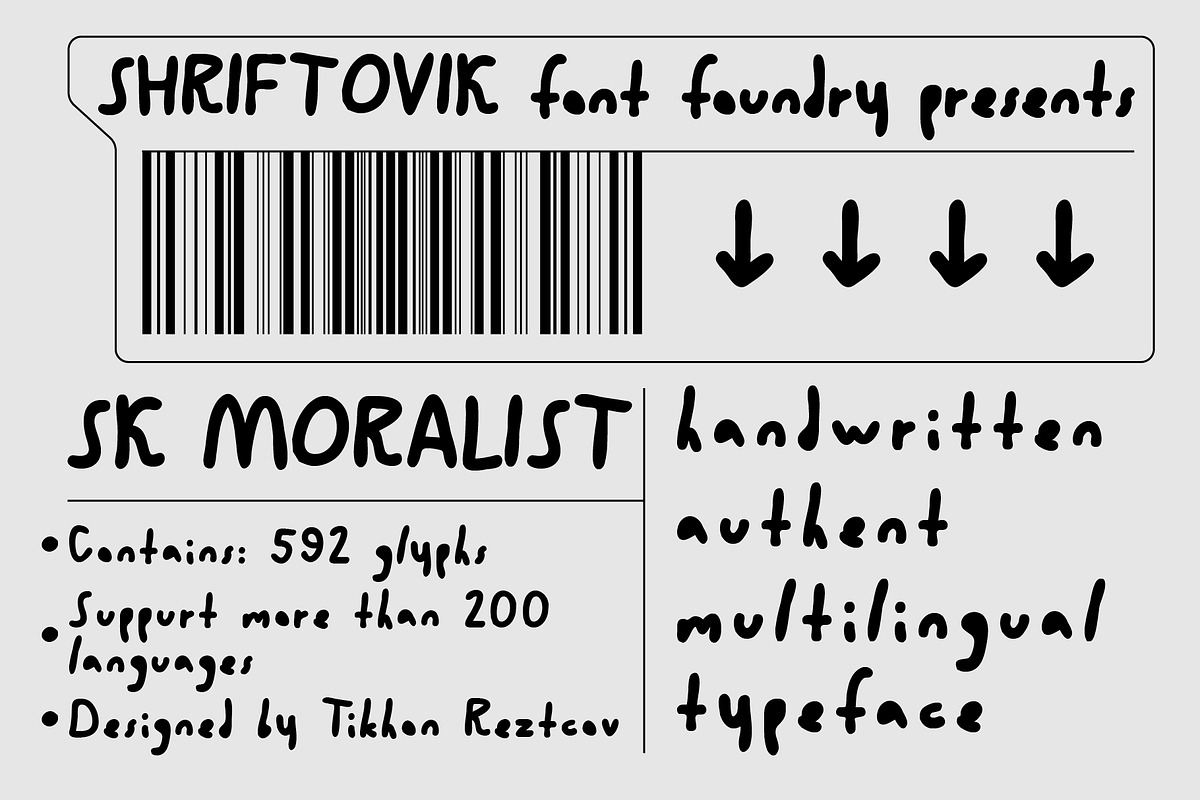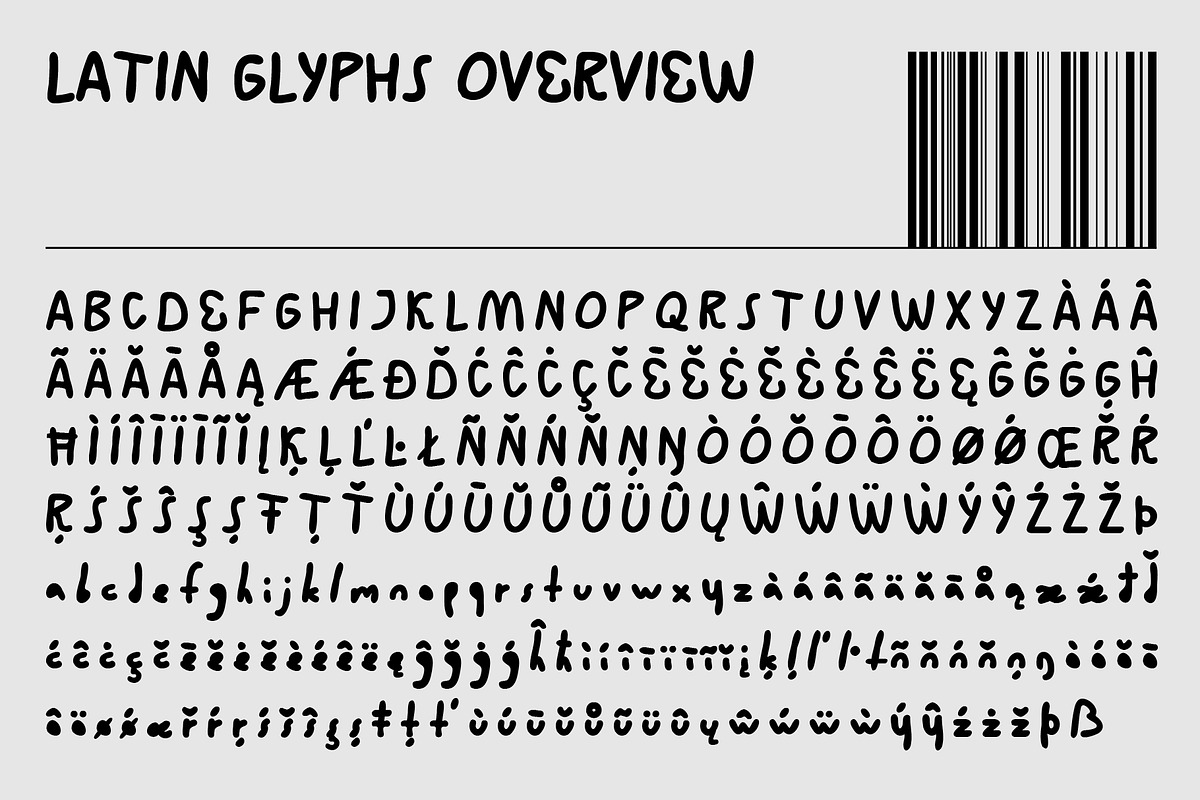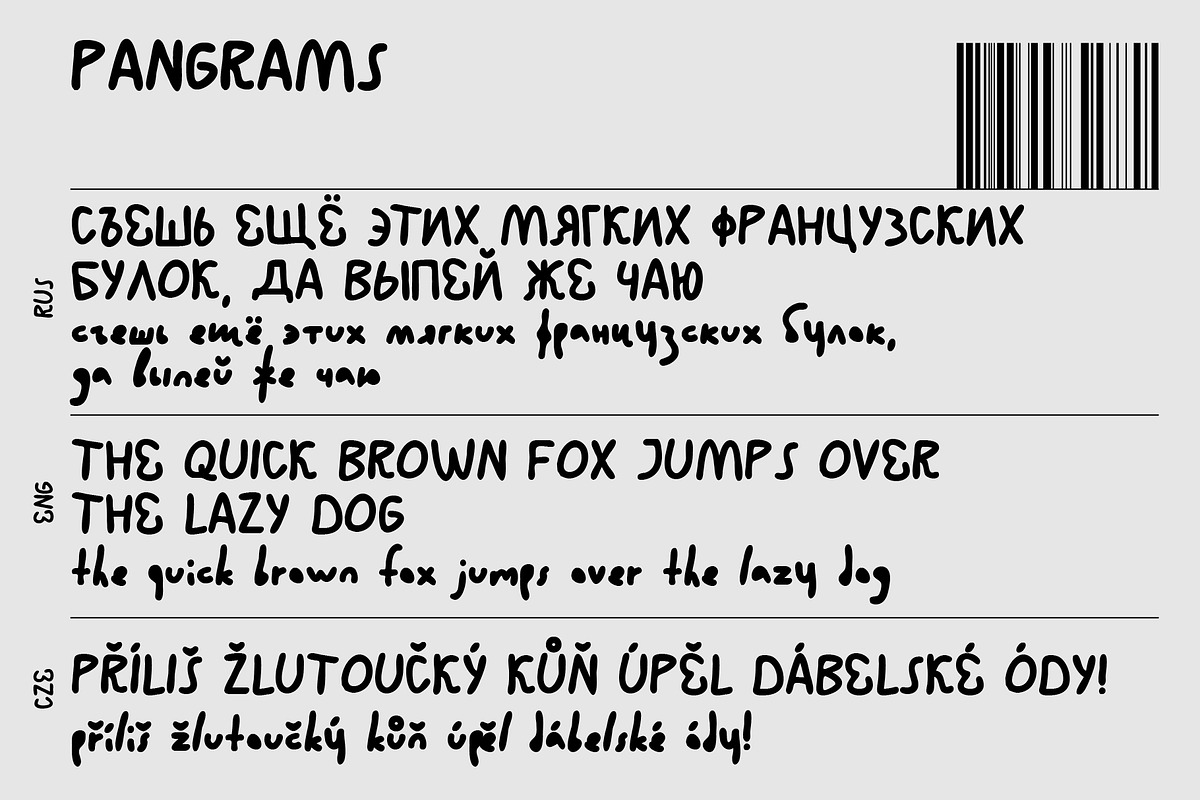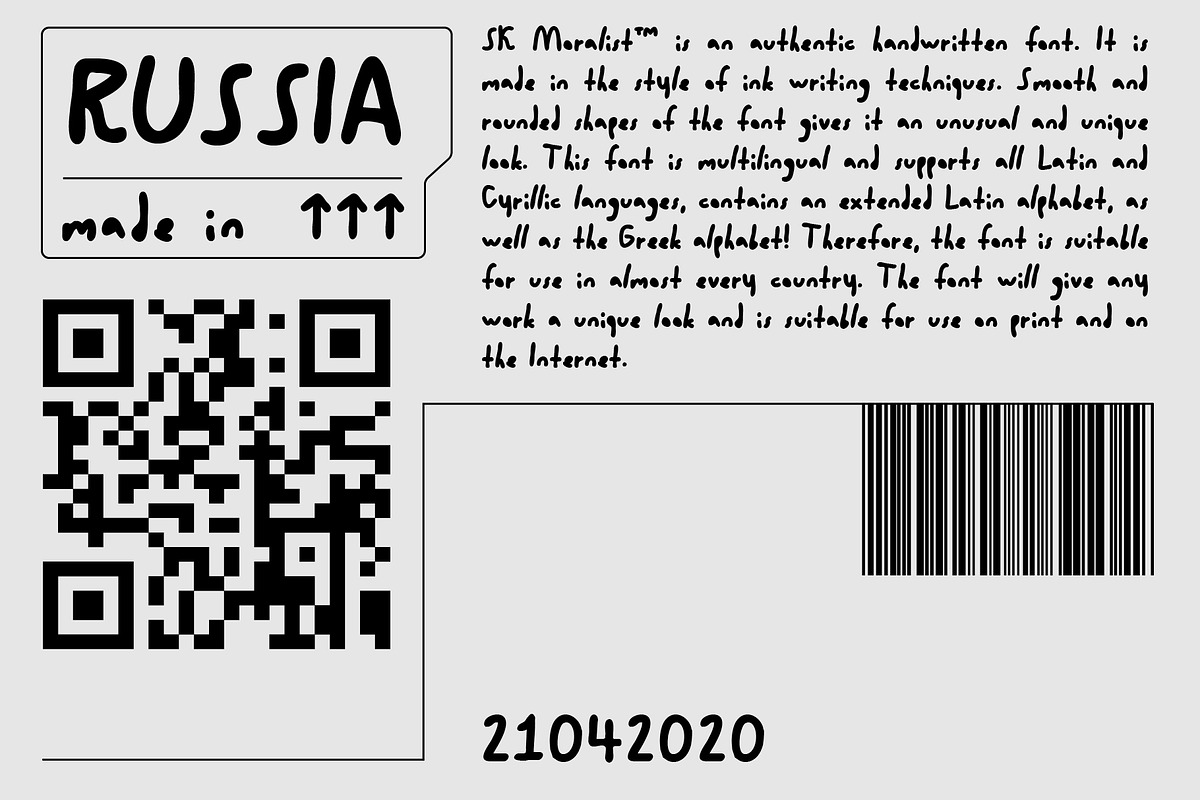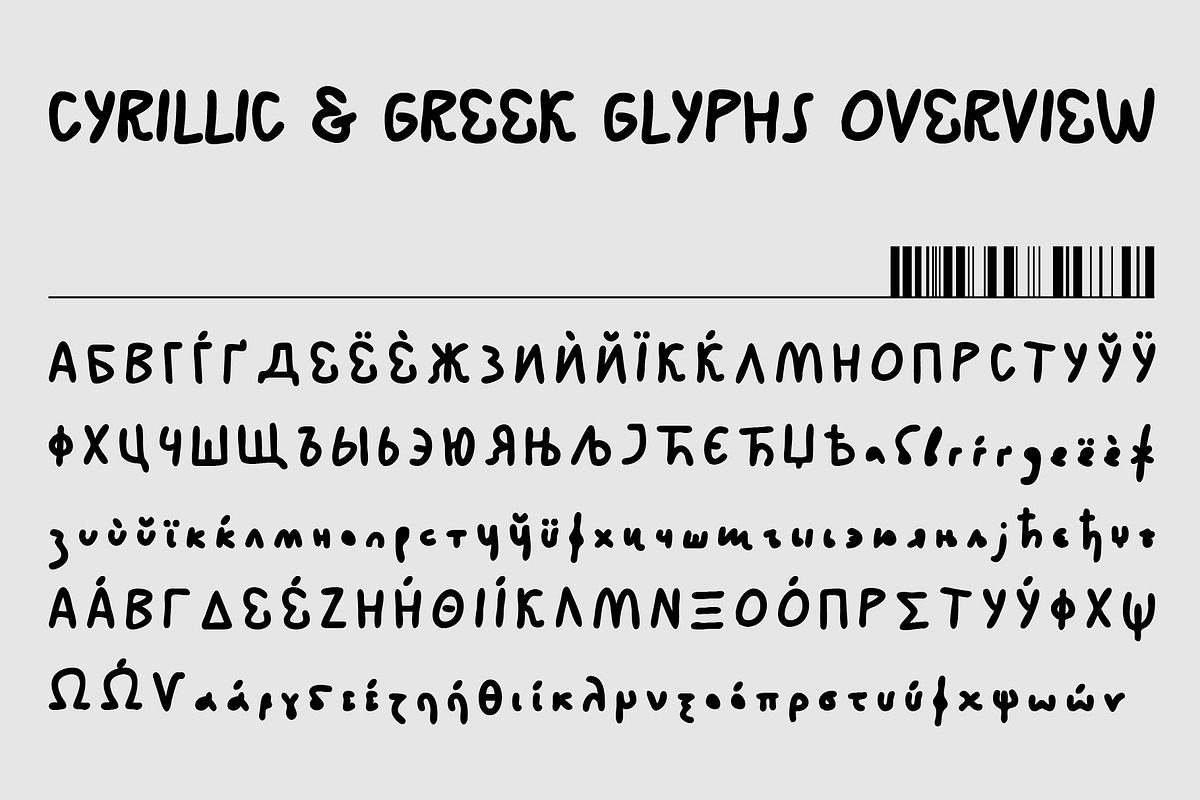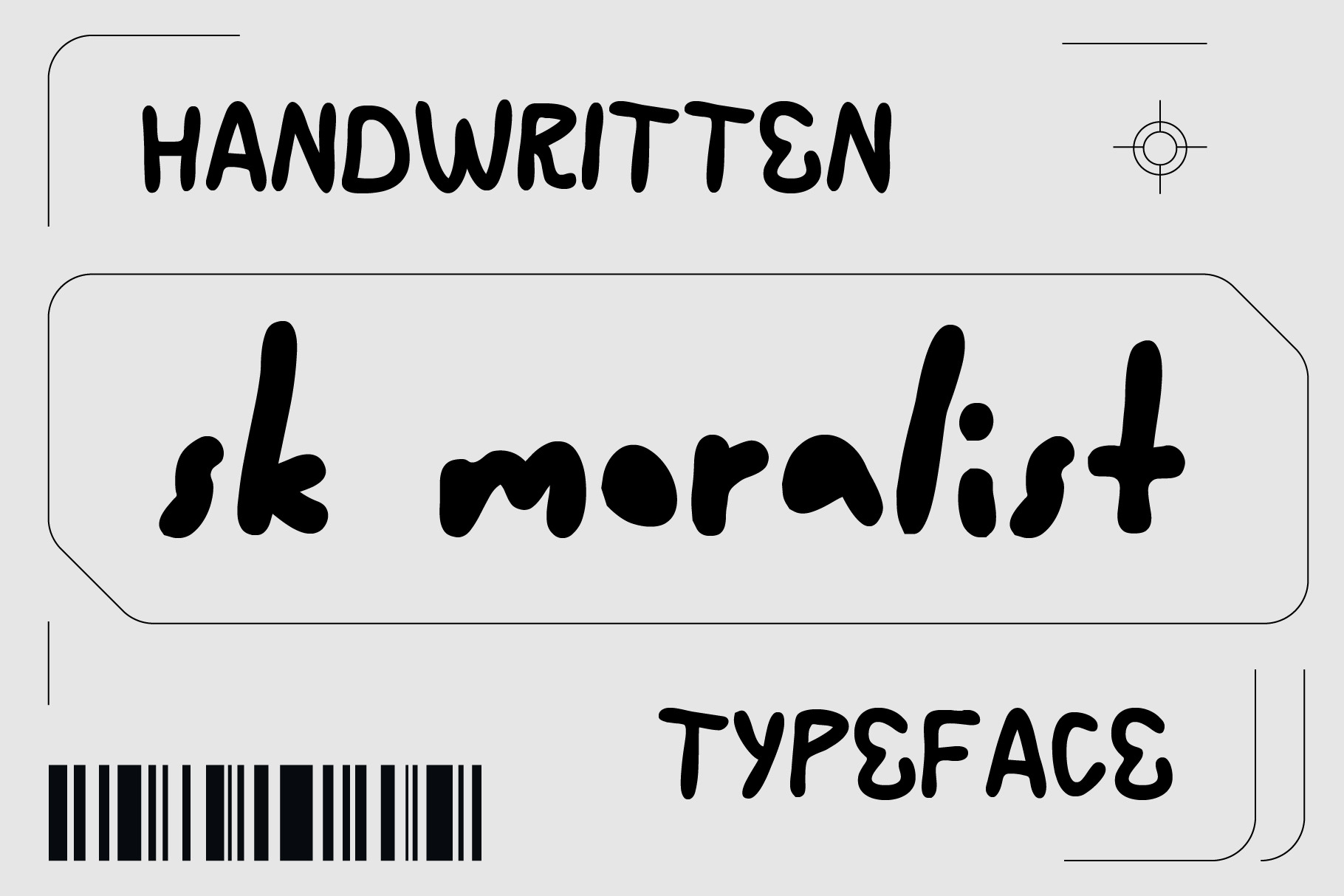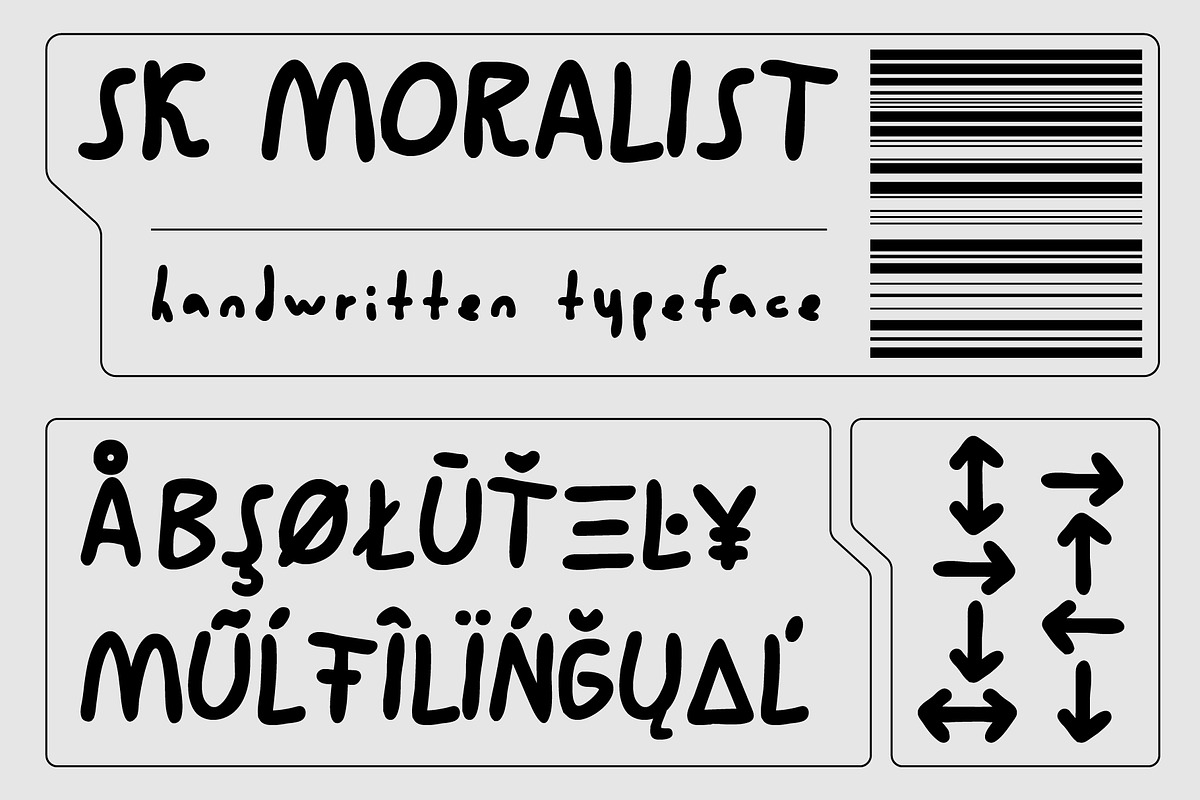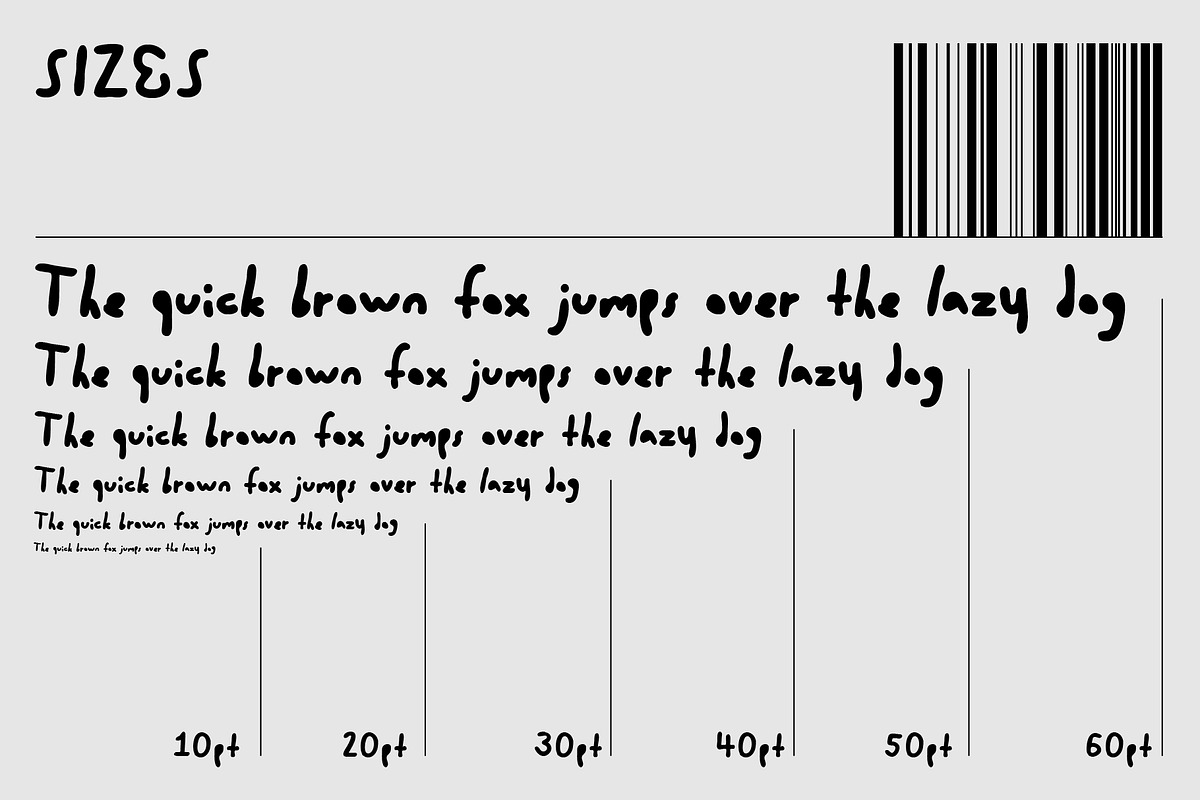
SK Moralist — Handwritten Font
SK Moralist is an authentic handwritten typeface. It is made in the style of ink writing techniques. Smooth and rounded shapes of the font gives it an unusual and unique look. This font is multilingual and supports all Latin and Cyrillic languages, contains an extended Latin alphabet, as well as the Greek alphabet! Therefore, the font is suitable for use in almost every country. The font will give any work a unique look and is suitable for use on print and on the Internet.